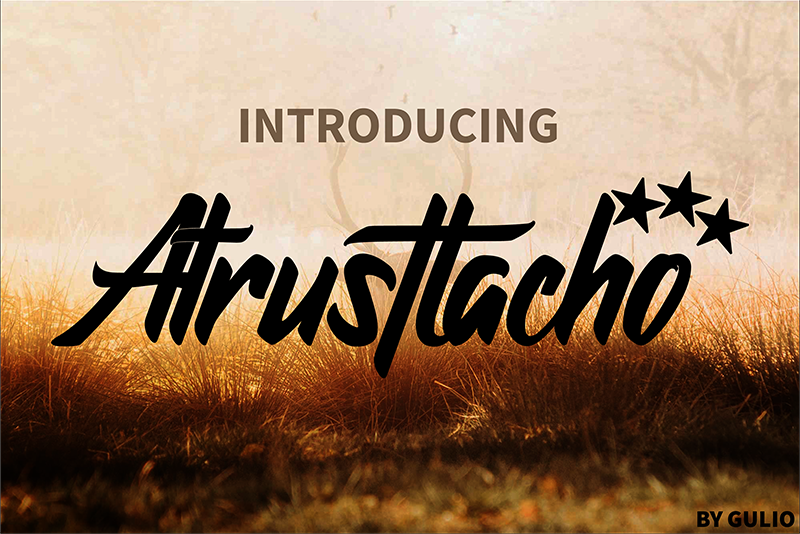
Preview and download Atrusttacho Font. Created by Wahy Sapt in Script Brush styles with Free for personal use license.
Full Glyphs : https://fontbundles.net/gulio/289163-atrusttacho Any Donate : https://paypal.me/wahysapt?locale.x=en_US INTRODUCING Atrusttacho is a unique touch font that has the same slope consistency. This is supported by the letter A which is made ligatures with the lowercase of a-z. Atrusttacho font very suitable for logos, magazines, brochures, posters, clothing designs, web banners, and other design projects. What you get IN FULL GLYPHS? -File Font (OTF) -Lowercase & Upercase -Punction & Numbers -Multilingual support (Lowercase & Upercase + Symbol) PUA Encoded Characters - Fully accessible without additional design software. I hope you enjoy this font. If you have any questions please don't hesitate to drop me a message :)Thank You, Gulio |